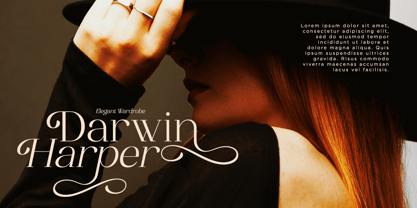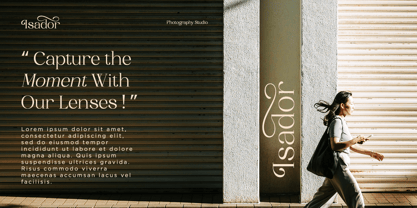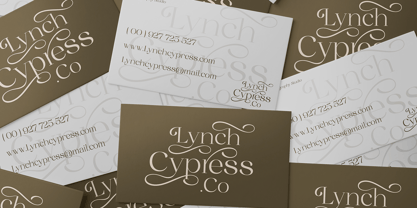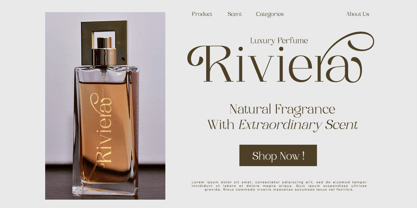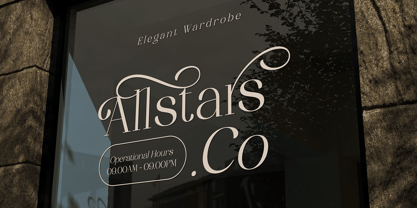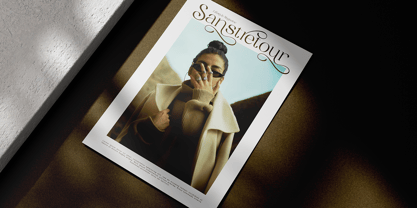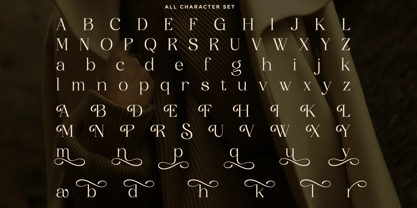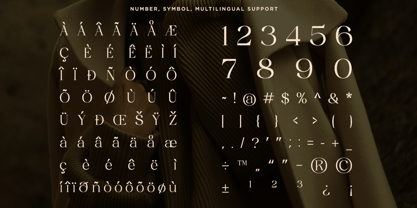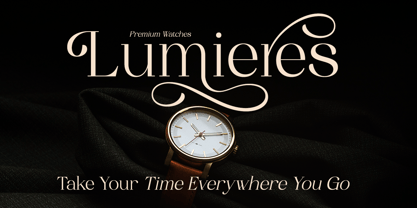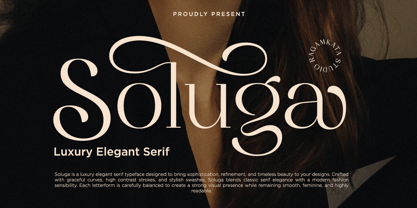
Soluga
La familia tipográfica Soluga fue diseñada por Yogiswhara Dio Prakoso Riadi y publicada por RagamKata. Soluga contiene 2 estilos y opciones de paquete familiar. Más información sobre esta familia
Soluga is a luxurious and elegant serif typeface that infuses sophistication, refinement, and timeless beauty into your designs. With its graceful curves, high-contrast strokes, and stylish swashes, Soluga seamlessly merges classic serif elegance with a contemporary fashion sensibility. Each letterform is meticulously balanced, ensuring a strong visual presence while maintaining smoothness, femininity, and exceptional readability. This typeface is perfect for a variety of applications, including branding, logo design, luxury fashion, beauty brands, magazine headlines, editorial layouts, wedding invitations, boutique packaging, cosmetic labels, social media graphics, high-end advertising, product branding, posters, and website headers. Elevate your personal branding with Soluga's distinctive charm and versatility. Thank You, Ragamkata